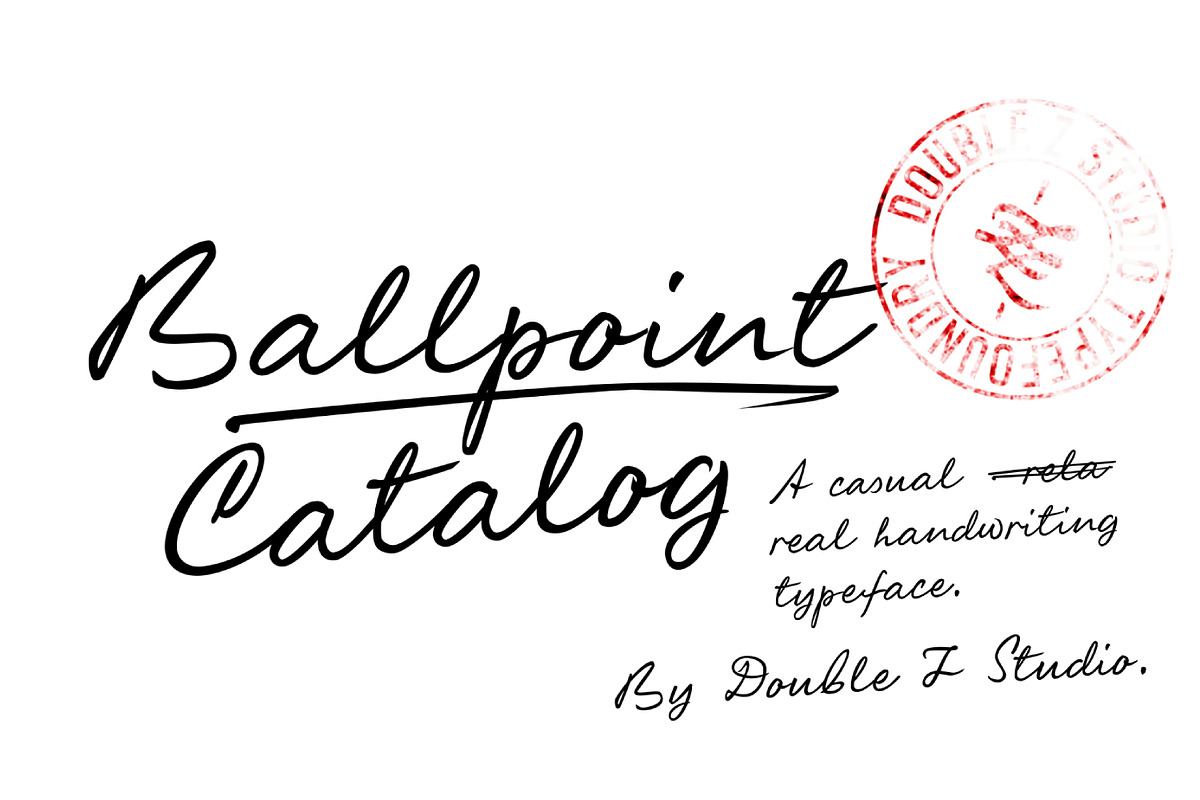
Give your designs a creative, handwritten touch with Ballpoint Catalog Font Free Download. This playful and unique typeface is perfect for casual, fun branding, product labels, invitations, stationery, and social media graphics that need a personalized feel.
Ballpoint Catalog features smooth, handwritten-like strokes that mimic the flow of a ballpoint pen. It includes uppercase and lowercase letters, numerals, punctuation, and ligatures—ideal for testing creative and friendly layouts in both print and digital projects.